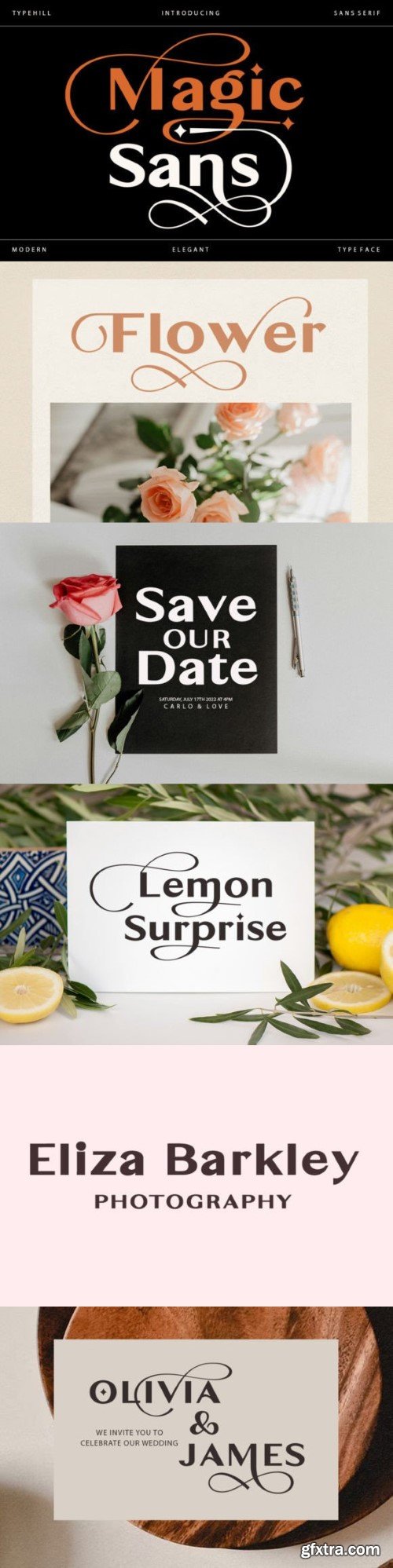
魔术Sans字体
Magic Sans is an exquisite typeface that exudes a sense of smoothness, cleanliness, and uniqueness. Its elegance and modernity make it perfect for a variety of formal applications, including invitations, labels, menus, logos, fashion, makeup, stationery, letterpress, romantic novels, magazines, books, greeting and wedding cards, as well as packaging and labels. Moreover, its simplicity ensures effortless readability, making it an ideal choice for any design project.